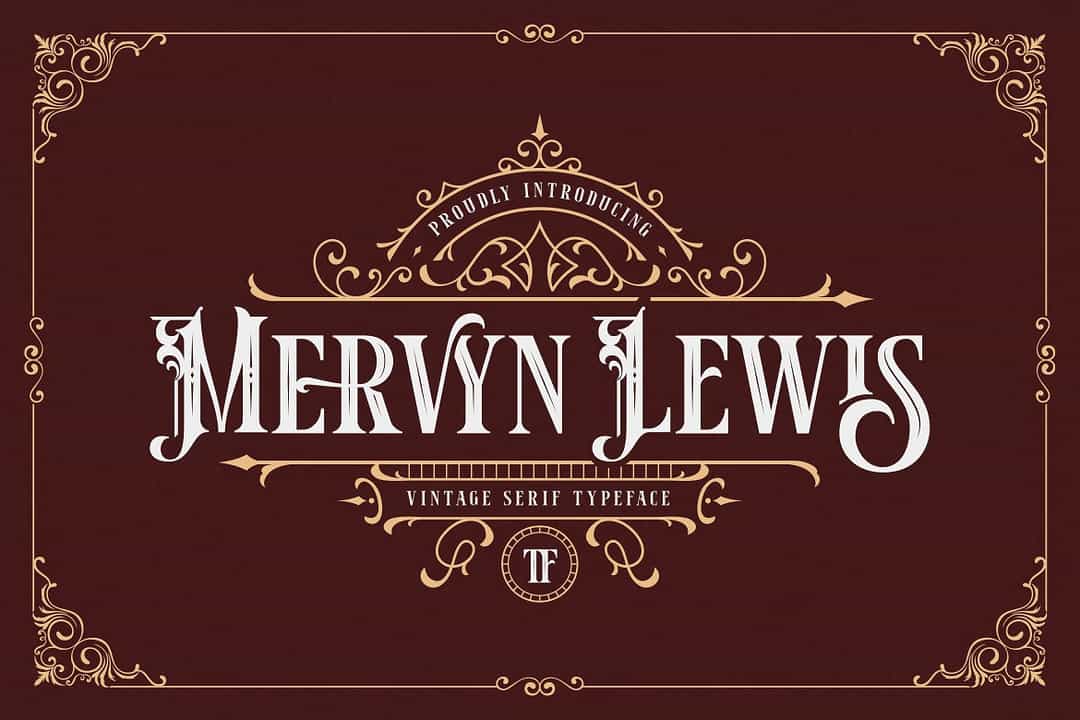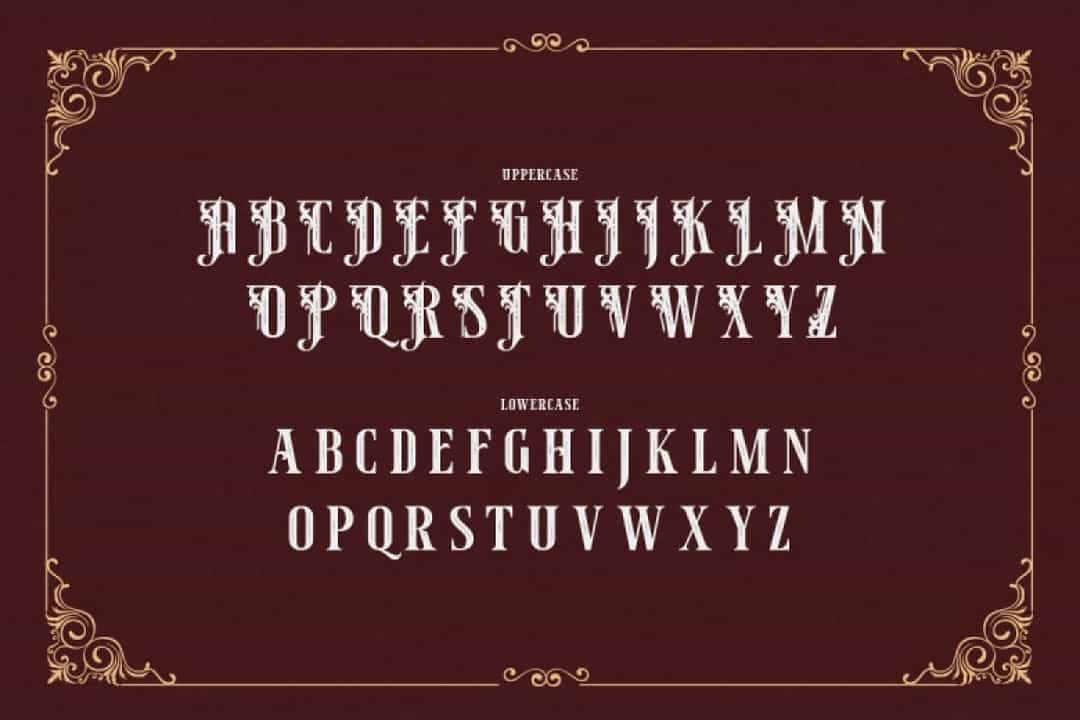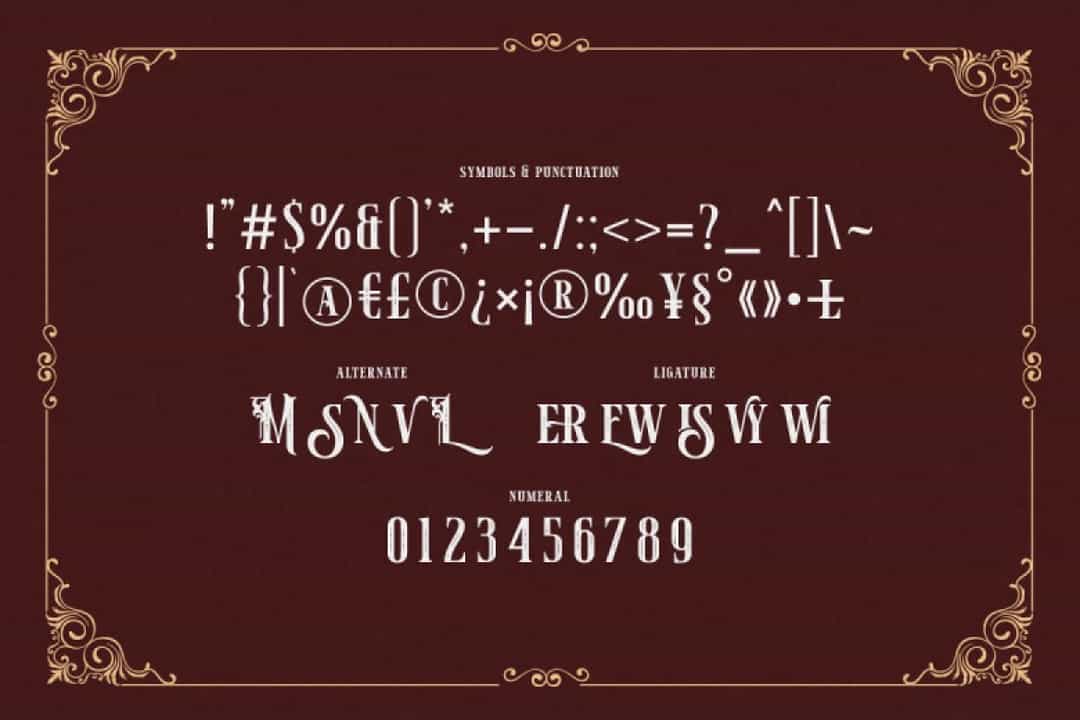
Discover Mervyn Lewis Font, part of the Serif Vintage collection—a versatile and unique font perfect for adding a personal touch to your projects. Download it for free and enjoy crafting designs with style, from invitations to social media posts. This font is available exclusively for personal use, giving you the freedom to create without limits. Unlock your creativity with Mervyn Lewis Font today!
If you’re looking for a retro and unique font (One which will bring all sorts of happiness to any project) the Mervyn Lewis font is just for you. It combines a sense of classic, cuteness, elegance and vintage which makes it distinctive enough to give any project life and energy.